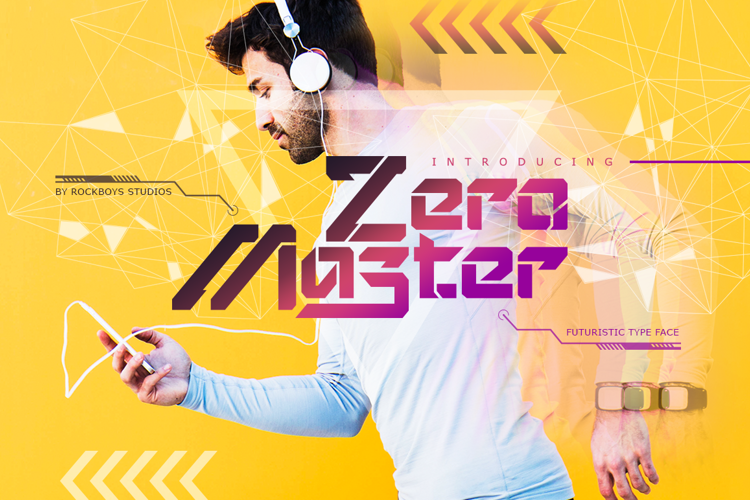
Zero Master Font
Zero Master is a modern and clean technological display font. It can fit a variety of sporting or racing designs. Add it confidently to your projects, and you will love the results.